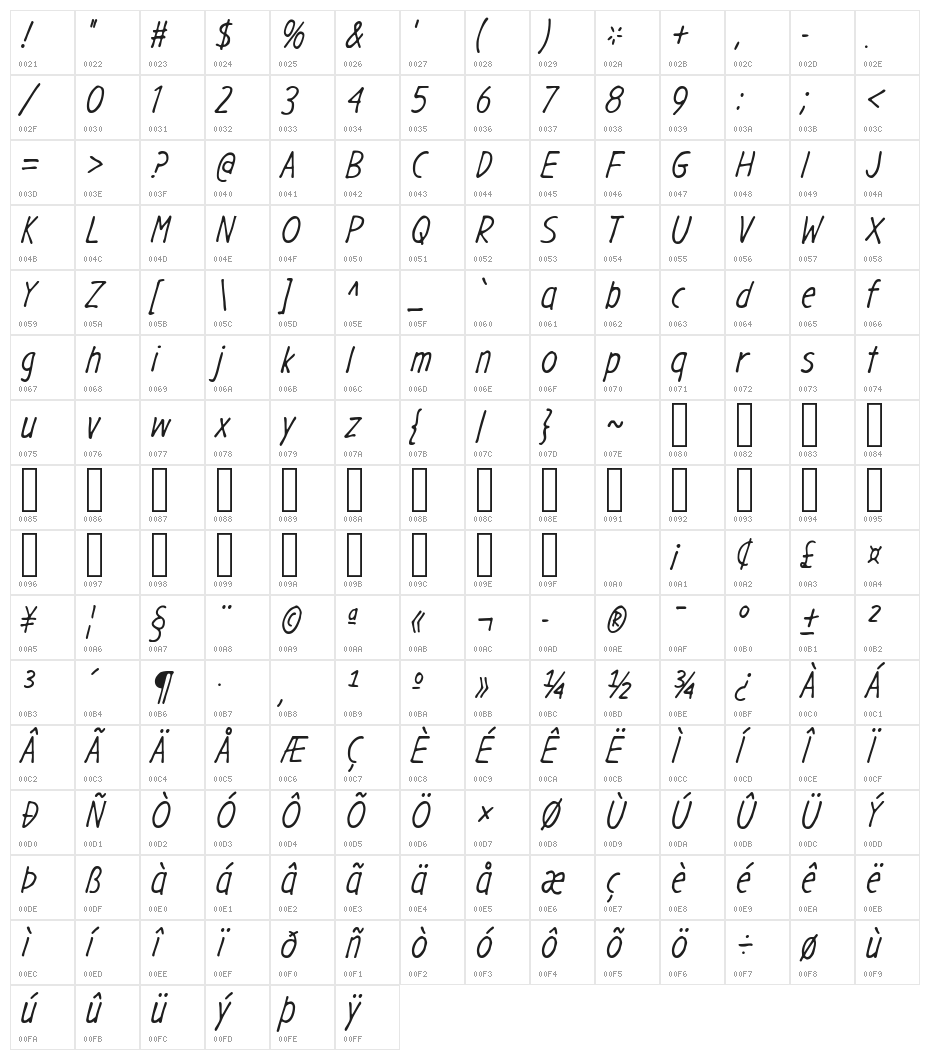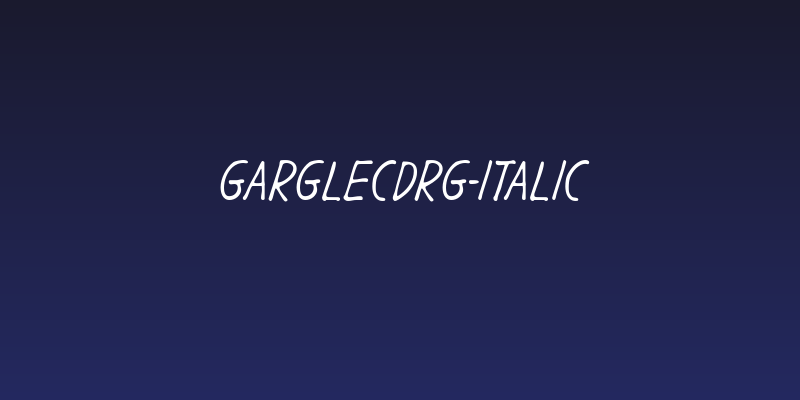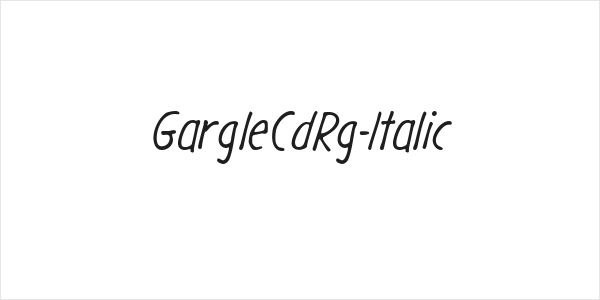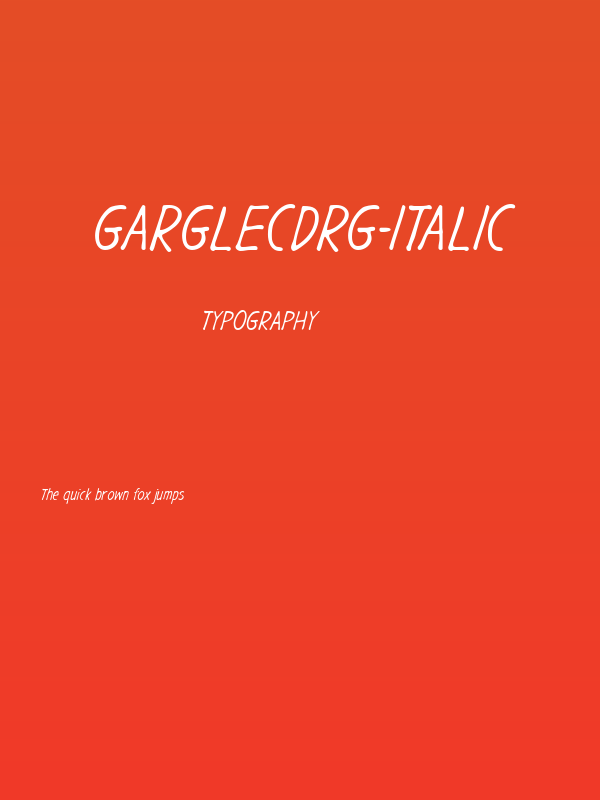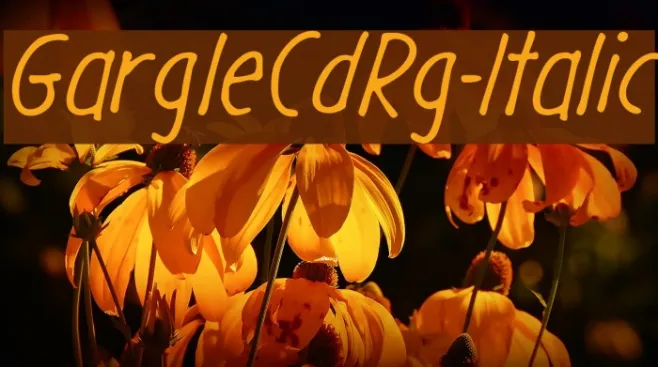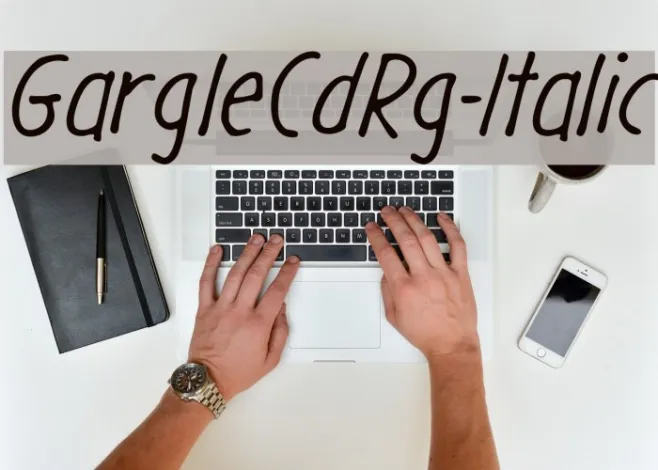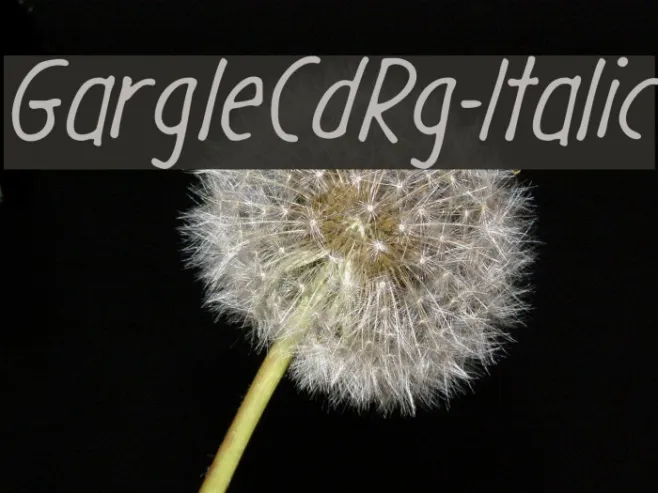
GargleCdRg-Italic Font
GargleCdRg-Italic Description
This font exhibits a casual, handwritten style with a slight slant, giving it an informal and approachable appearance. The characters are crafted with smooth, flowing lines that mimic natural handwriting, making it ideal for projects that require a personal touch. The uppercase and lowercase letters maintain consistent proportions, while the numbers and special characters blend seamlessly with the overall design. The strokes are moderately thick, providing good readability without sacrificing the font's relaxed aesthetic. This font is versatile, suitable for a variety of creative applications.
| Use Case | Logos, Headlines, Informal Text |
| Proposed Projects | Ideal for greeting cards, personal letters, casual branding, and social media graphics. |